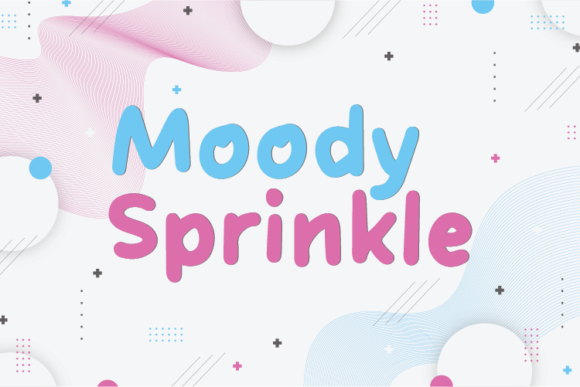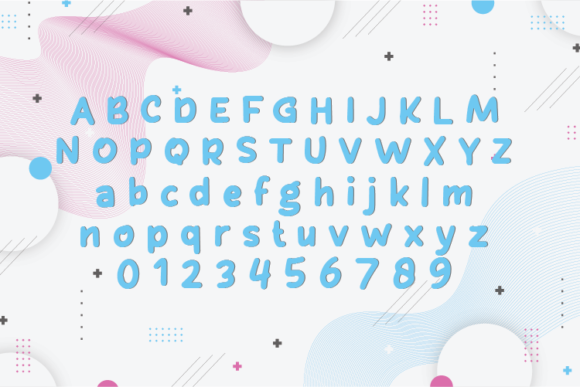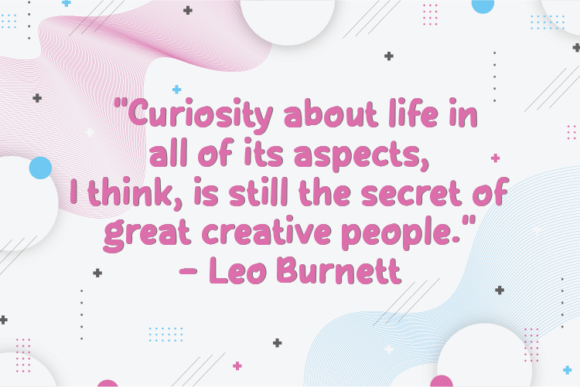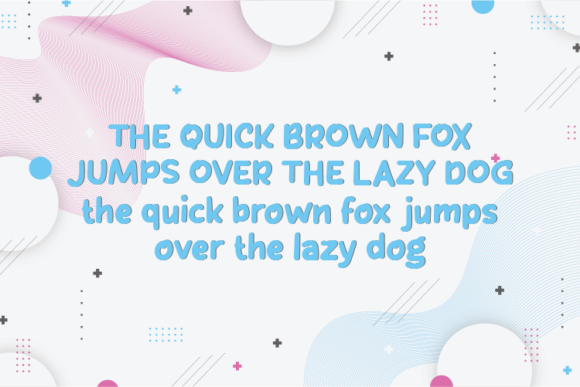
Moody Sprinkle Font
About Moody Sprinkle Font
Moody Sprinkle, a natural handwritten font, stands out for its distinctive quality of preserving each character’s original indentation without altering a single node. This unique feature adds an intriguing and authentic touch to the font, making it a perfect choice for a range of creative applications.
The natural and handwritten appearance of Moody Sprinkle brings an organic and personal feel to your text. This font is particularly well-suited for quotes, notes, and tees, where its authentic and unprocessed style can enhance the overall visual appeal of the content. The preserved character indentation contributes to the font’s uniqueness, creating an interesting and genuine aesthetic.
The versatility of Moody Sprinkle extends to product designs, making it suitable for packaging, labels, and various other design projects that call for a natural and handwritten look. Its engaging and distinctive style can add a touch of charm and character to your product designs.
In summary, Moody Sprinkle is more than just a font; it’s an embodiment of natural, handwritten charm. The font’s unique feature of retaining character indentation sets it apart, offering an interesting and authentic quality that elevates your projects. Let Moody Sprinkle be the choice that infuses your designs with a delightful and genuine handwritten touch, perfect for quotes, notes, tees, and a variety of product designs.